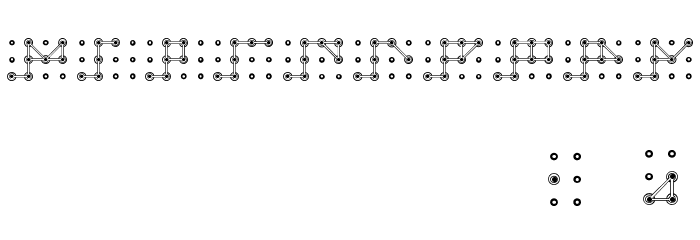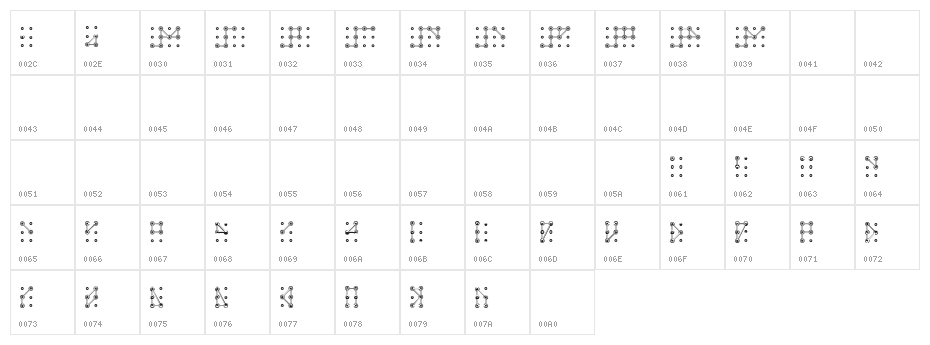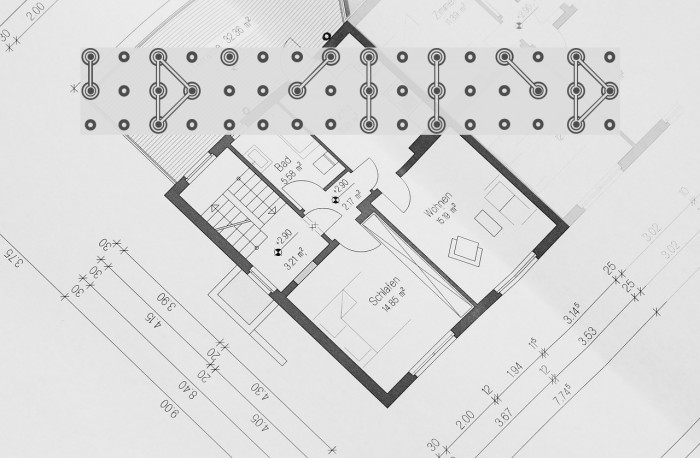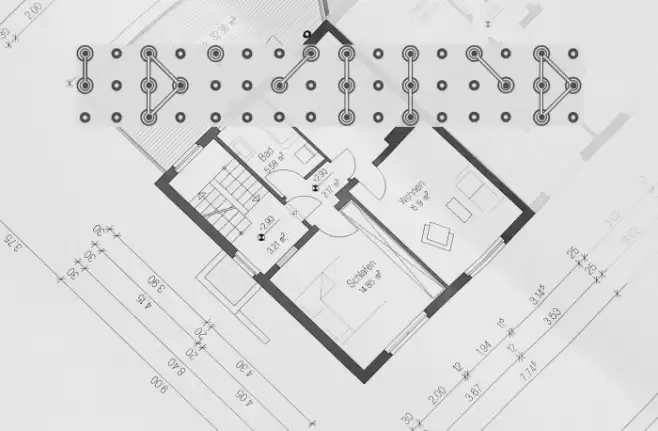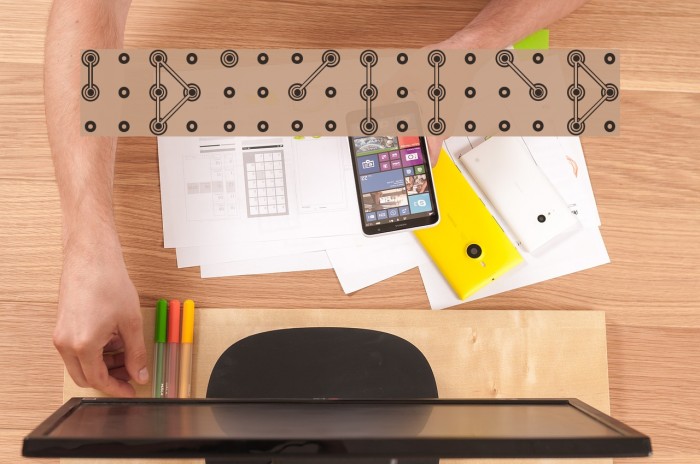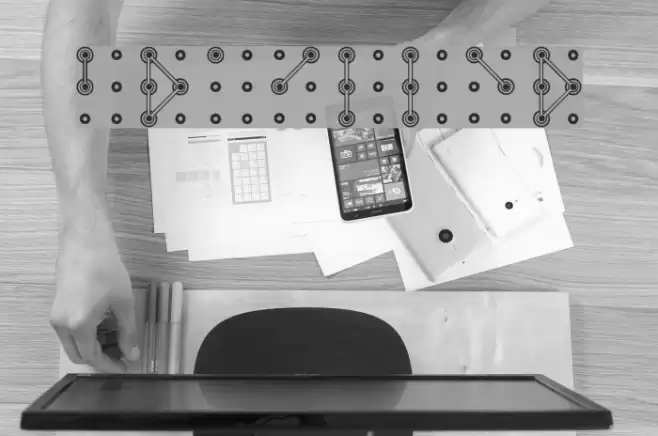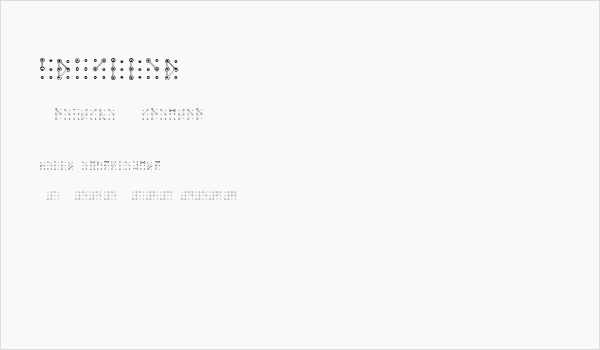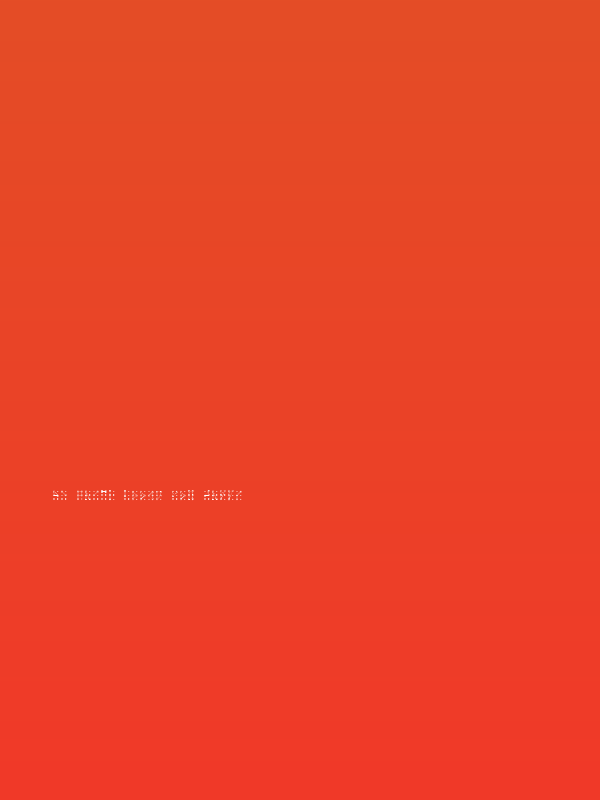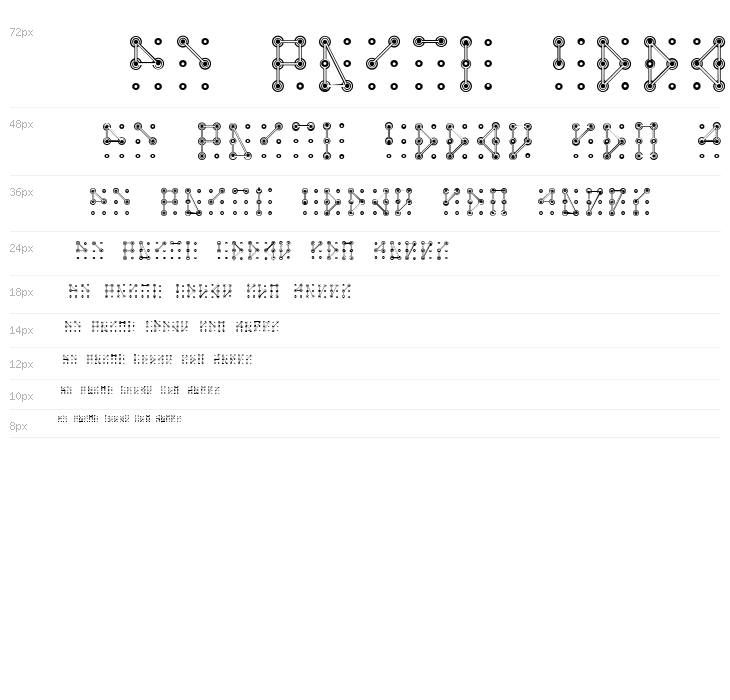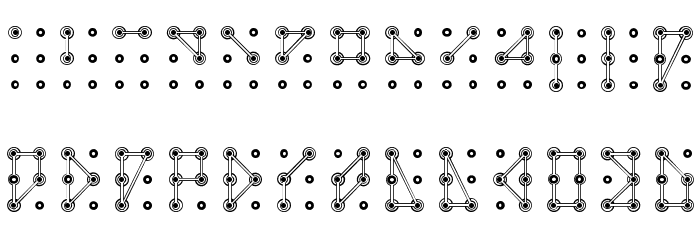
brailler Font
brailler Description
This font is a unique and visually intriguing representation of characters using a braille-inspired design. Each letter and symbol is constructed with a series of dots connected by lines, creating a geometric and abstract appearance. The design is consistent across all characters, maintaining a uniform look while offering a distinct style that stands out. The use of dots and lines gives it a modern and tech-inspired feel, making it suitable for creative and innovative projects. The font's structure is both decorative and functional, providing a fresh take on traditional typography.
| Use Case | Logos, Posters, Creative Displays |
| Proposed Projects | Ideal for tech-themed designs, educational materials, or creative branding projects. |